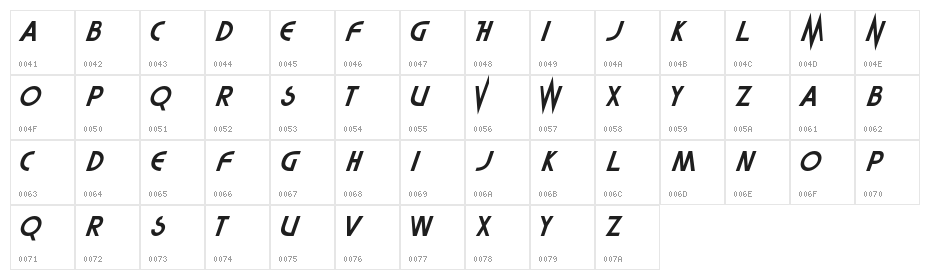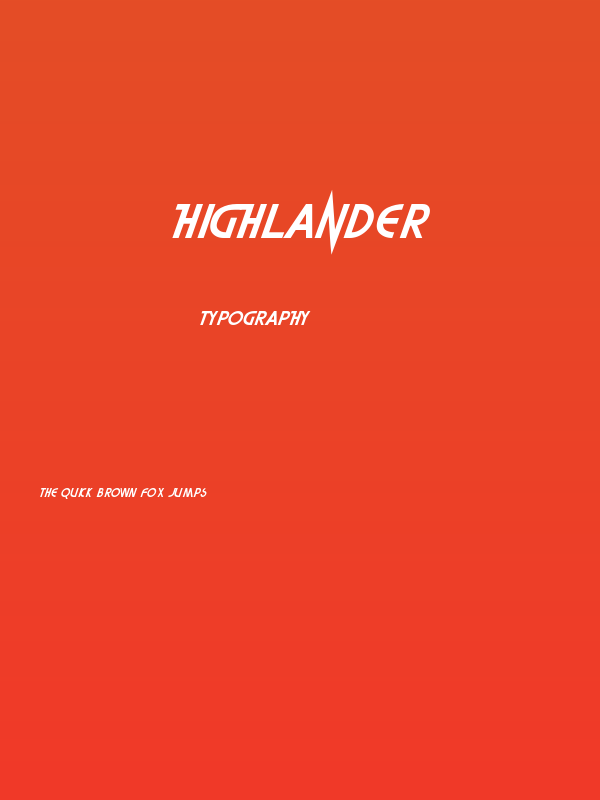
Highlander Font
Highlander Description
This font features a bold and dynamic design with sharp, angular edges and a distinct slant, giving it a sense of movement and energy. The uppercase letters are particularly striking, with some characters incorporating unique, lightning-like extensions that add to the font's dramatic flair. The lowercase letters maintain the same angular style, ensuring consistency throughout. The numerals and special characters are designed to match the overall aesthetic, making this font suitable for impactful and eye-catching designs. Its bold presence and unique style make it ideal for projects that require a strong visual statement.
HIGHLANDER UPPERCASE
HIGHLANDER LOWERCASE
HIGHLANDER OTHER CHARS
| Proposed Projects | Ideal for movie posters, video game titles, branding for sports teams, and any project needing a bold, energetic typeface. |